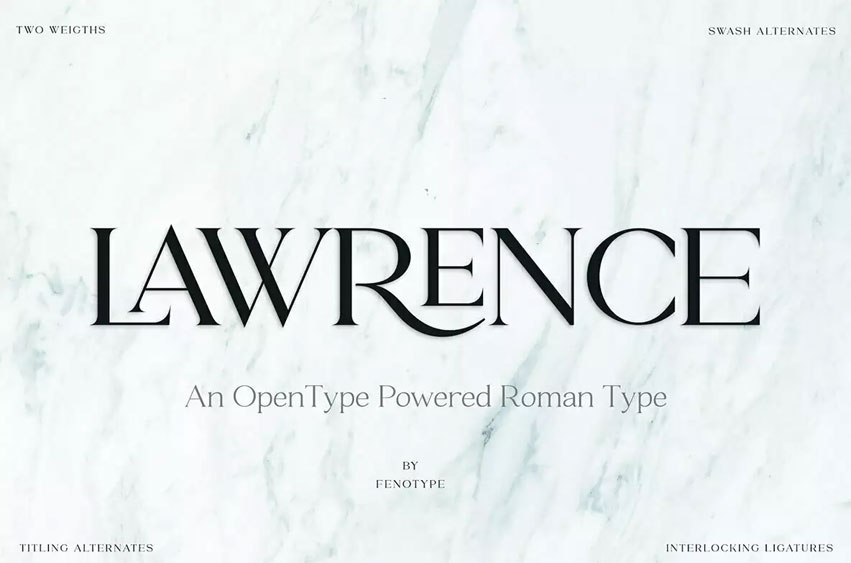
Lawrence Font
Lawrence Font is an OpenType Roman Display font available in two different options that is suitabe for branding projects with exquisite touch.
Lawrence Font is especially suitable for fashion, branding, packaging, or editorial purposes and gives even the most ordinary design a classic and elegant finish. Due to the fact that it is easily printable, it is suitable for use in the best brand projects, such as premium packaging, prominent magazine designs, and exquisite branding products.
A set of 192 OpenType alternates comes with the font, allowing for variation in stylization with features such as Swash, Stylistic, and Titling Alternates. It enables you to format and fine-tune your text more easily and provides each of the projects with a certain finishing touch. The typeface also displays interlocking ligatures constructed in Discretionary Ligatures, where there are pair formations in the Uppercase + Uppercase, Uppercase + Lowercase, and Lowercase + Lowercase manners. These ligatures enhance your typeface designs by providing another layer of refinement, further promoting smooth and easily readable text.